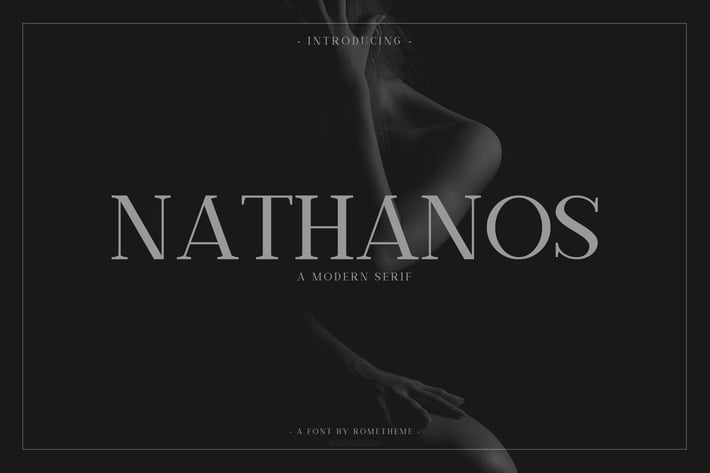
Nathanos - Serif Font
Nathanos is a modern serif font typeface. This font will pair beautifully with the script, signature or handwriting style. Nathanos is perfect for signature, headlines, titles, magazines headings, logo's, web layouts, invitations, books, presentations, posters, name card, branding, and all project design other. Nathanos comes with elegant style. It contains a full set of uppercase letters, a large range of punctuation, and numerals.